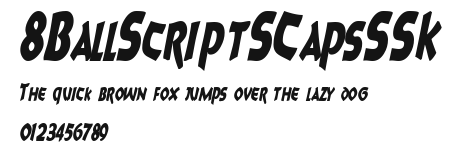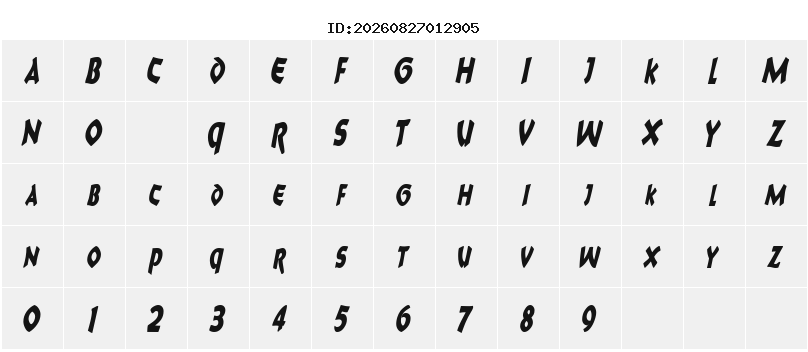
8BallScriptSCapsSSK Preview
• Font Name: 8BallScriptSCapsSSK
• Font Style: BoldItalic
• Font ID: Macromedia Fontographer 4.1 8BallScriptSCapsSSK BoldItalic
• Full Font Name: 8BallScriptSCapsSSK BoldItalic
• Version: Macromedia Fontographer 4.1 8/10/95
• PostScript Name: 8BallScriptSCapsSSKBoldItalic
• Character Count: 213
About 8BallScriptSCapsSSK.ttf
8BallScriptSCapsSSK.ttf is a modern, elegant sans-serif font designed for ultimate readability and visual harmony. Perfect for branding, headlines, web design, and print materials.